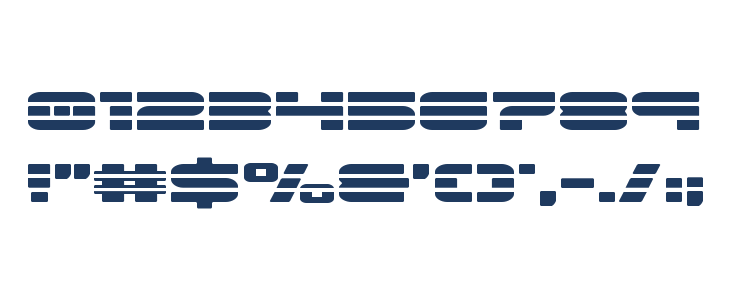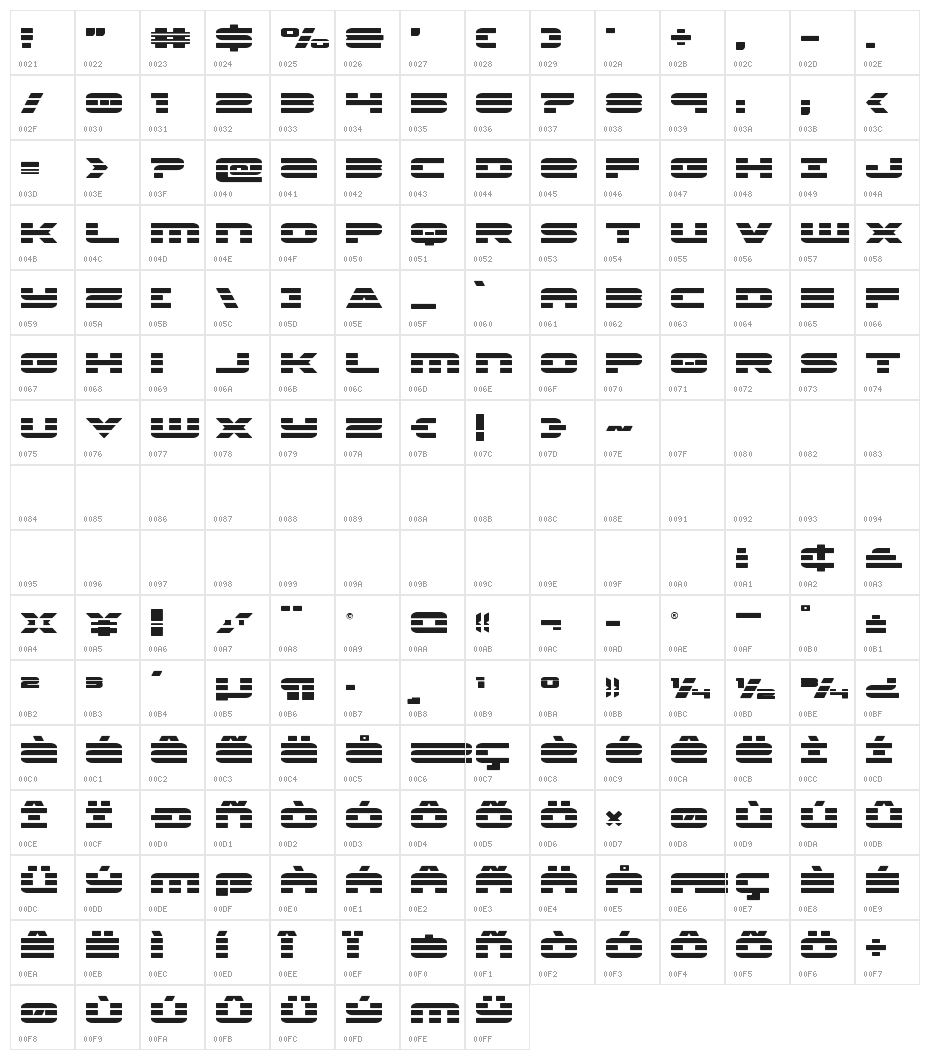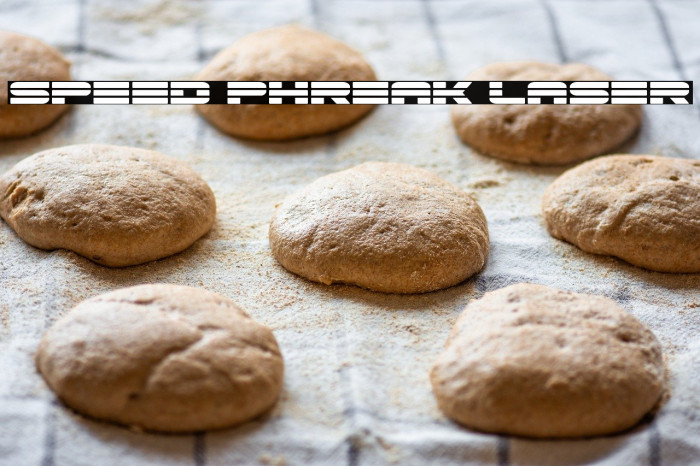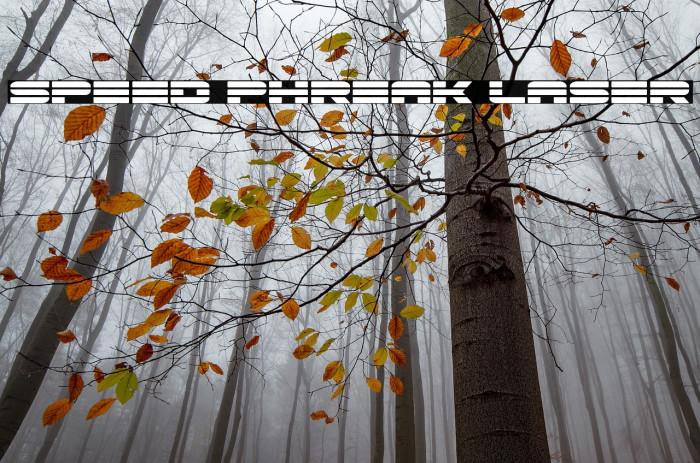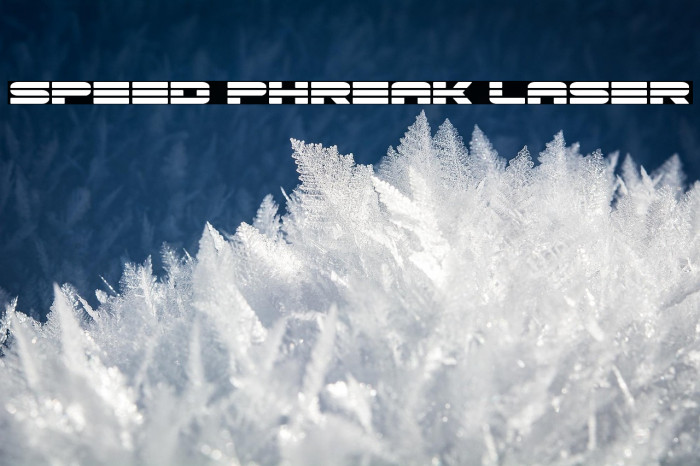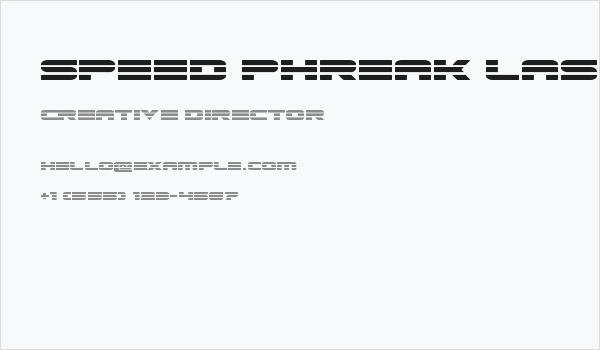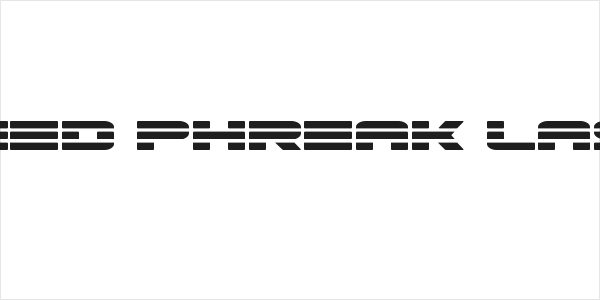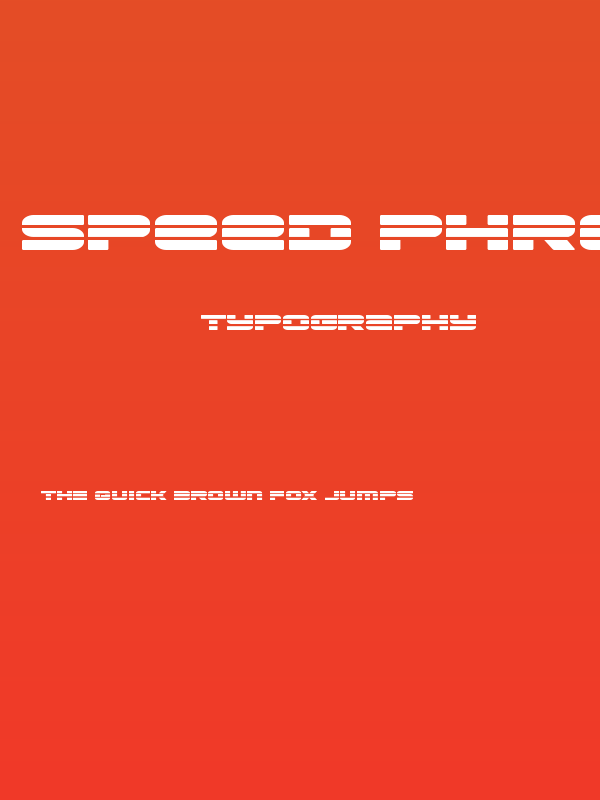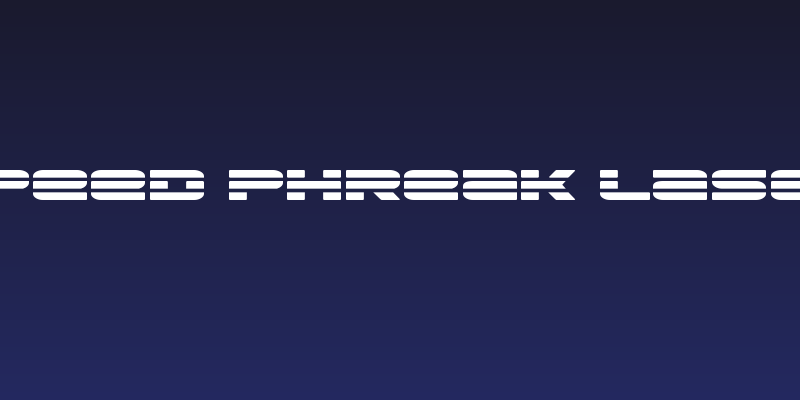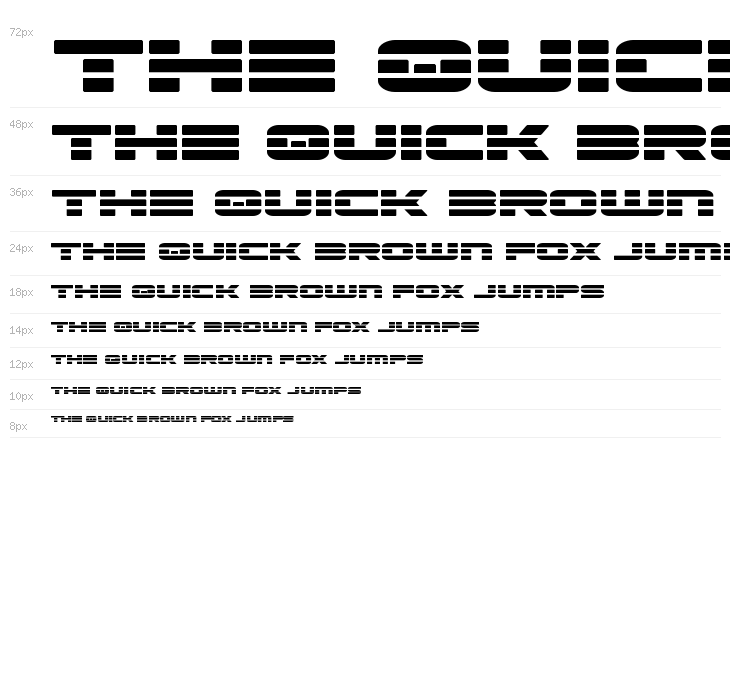
Speed Phreak Laser Font
Speed Phreak Laser Description
This font features a futuristic and dynamic design, characterized by its segmented and geometric letterforms. The uppercase and lowercase letters, along with numbers and special characters, are constructed with bold, horizontal lines that create a sense of speed and movement. The design is reminiscent of digital displays or high-tech interfaces, making it ideal for projects that require a modern and edgy aesthetic. The font's unique style is both eye-catching and versatile, suitable for a variety of creative applications.
Proposed ProjectsIdeal for tech-themed designs, video game graphics, sci-fi movie titles, and modern branding projects.